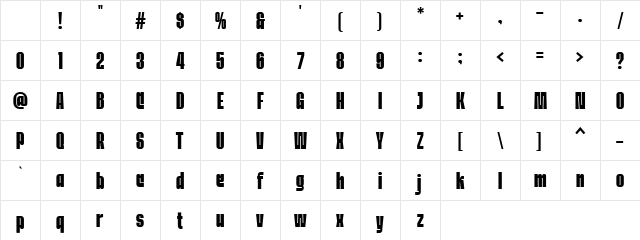
Rogeta is a composed and adaptable typeface that performs quietly and consistently across a wide range of design contexts.
Pro Tip: Use Rogeta in both headline and body roles to test its range before committing to a single application.